15 messy handwritten Halloween fonts
Halloween designs don’t have to be all dripping blood and gothic typefaces... sometimes the best Halloween fonts are the ones that look like they’ve been scrawled by hand.
Handwritten Halloween fonts bring a more personal, organic feel to spooky season. Whether you’re designing party invites, posters, social posts or product packaging, a good hand-drawn typeface can add the perfect mix of eerie charm and character.
From jittery brush strokes to scratchy marker lines, we’ve curated 15 of our favourite spooky, messy and hand-crafted fonts to inspire your Halloween designs.
Mustkill
Mustkill: A Spine-Chilling Font with Rough Details
Drawing inspiration from the suspenseful world of horror movie posters, Mustkill offers a gripping addition to any design that seeks to evoke intense emotion... a prime choice for projects that require an edgy and dramatic flair.
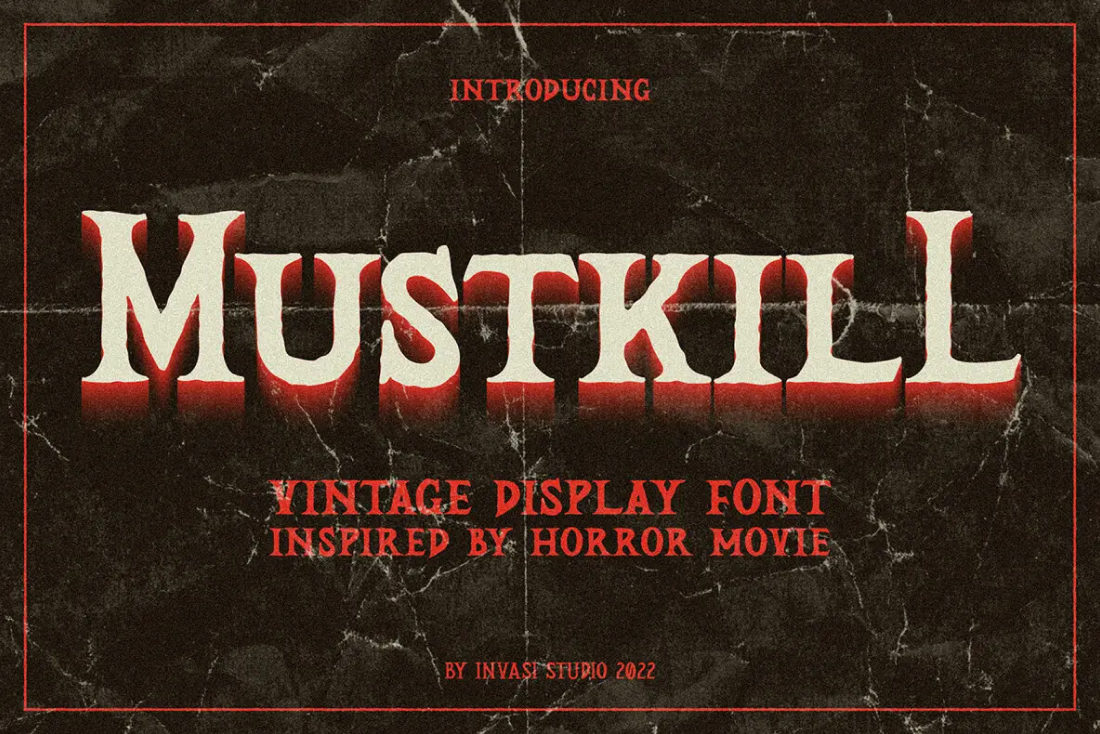
Manic
Manic is truly a messy handwriting font. It's scribbly, it's scratchy and above all, it's unique.
It has a massive amount of glyphs and ligatures (650+) and each alternate's characters can be mixed and matched to create that extra messy look. Manic looks like real handwriting, like it was scrawled onto paper with a lead pencil.
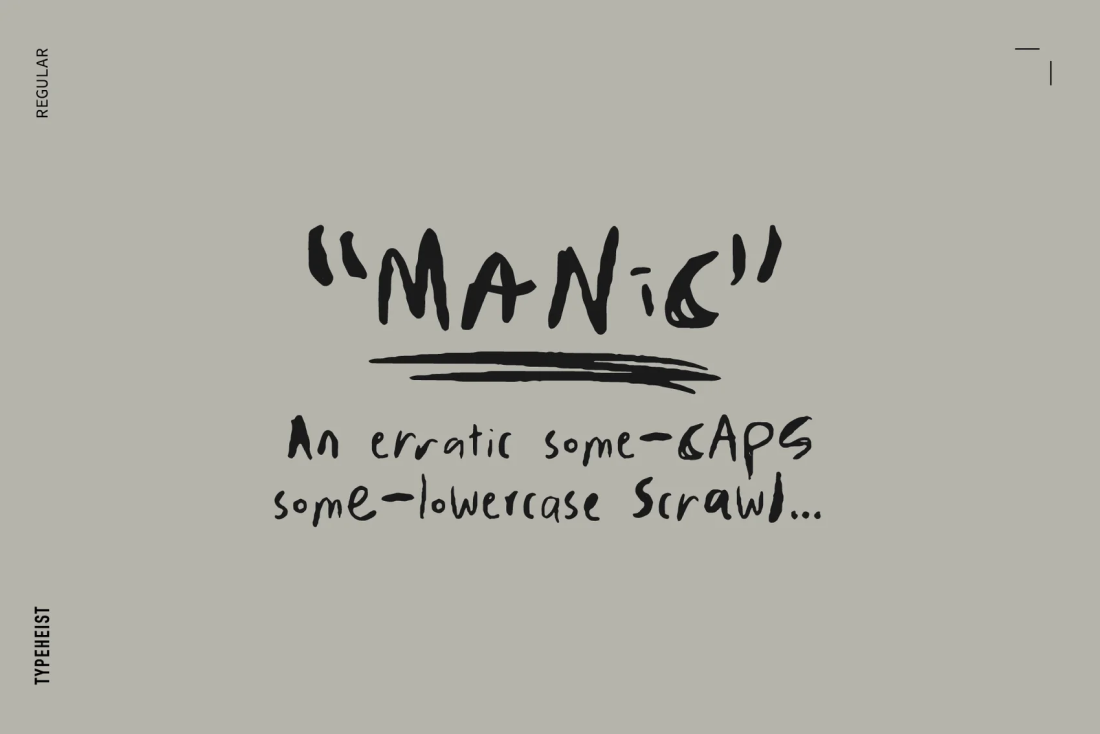
Spooky Society
Just in time for your halloweeny projects.
Say hello to Spooky Society! A ghoulish, and fun all caps Bitmap SVG font with built-in speckly texture. A Regular Solid version of the font is also included.
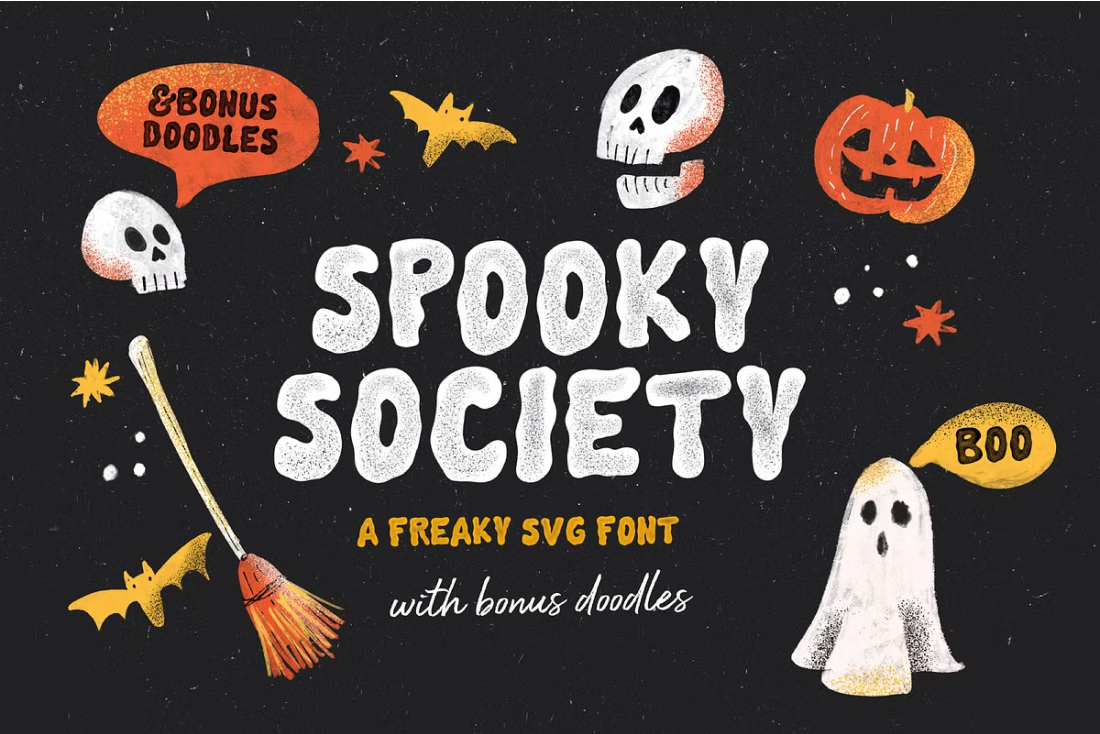
Fright Hours
Fright Hours is a great font for use in poster or movie designs that have horror and freaky vibes! With multiple languages supported, this could be your next Halloween event's sign off.
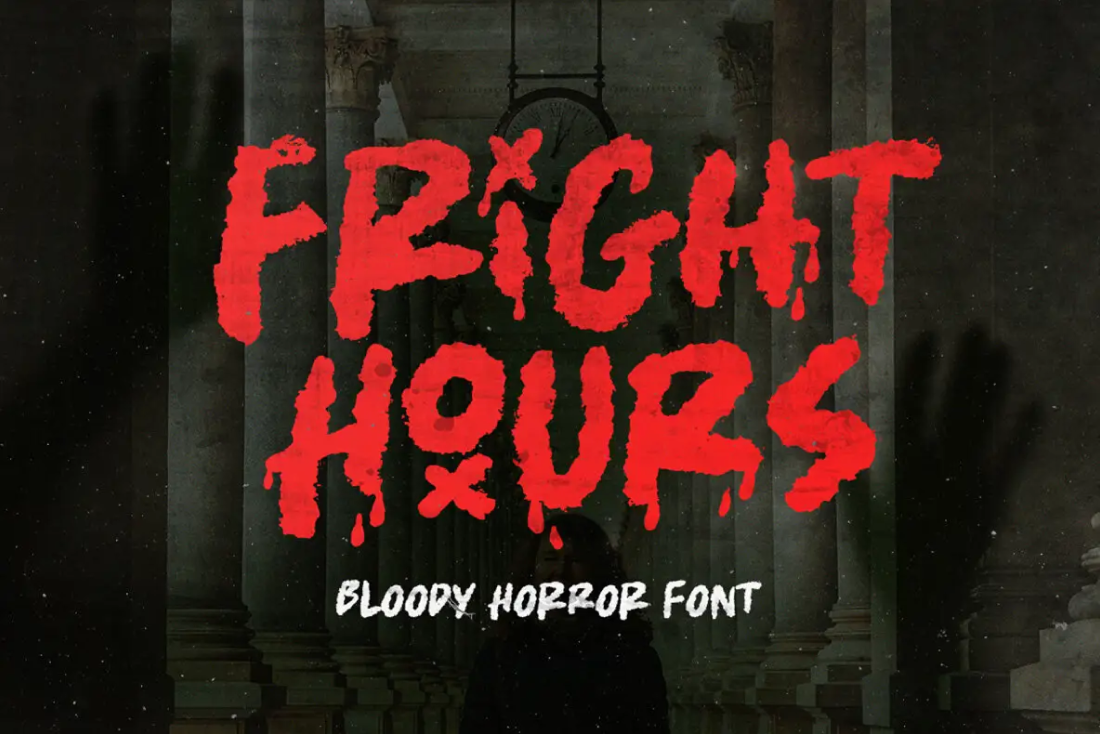
Sticky
It’s a little messy, a little weird and a lot of fun. Perfect for projects that call for a friendly and slightly unusual touch.
Sticky is an unusual but approachable font with a playful edge. Designed to look like genuine handwriting, it’s packed with glyphs, ligatures and alternates to give your text natural flow and plenty of variation. Every letter feels a little different, adding a sense of personality and authenticity.
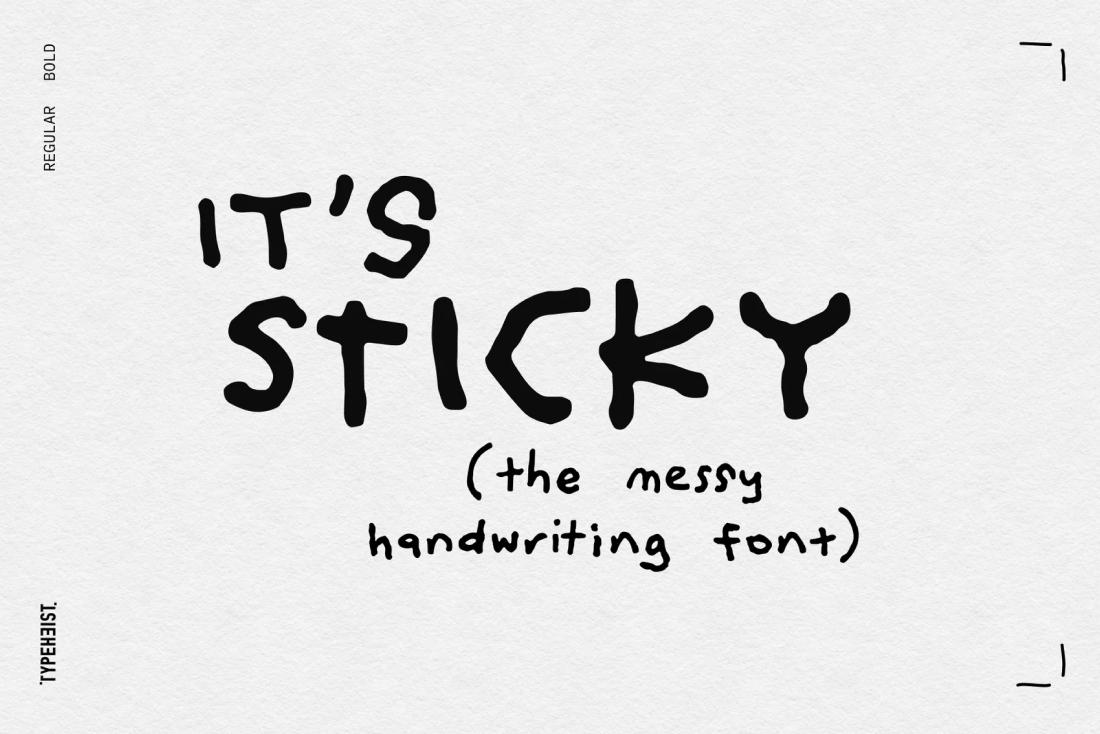
Zombik
The Zombik Typeface: An Unconventional Charm
The Zombik typeface exhibits a distinctive style that blends playfulness with a hint of nostalgia. Carefully crafted for those who seek an intriguing yet approachable aesthetic, this typeface stands out with its quirky design elements.
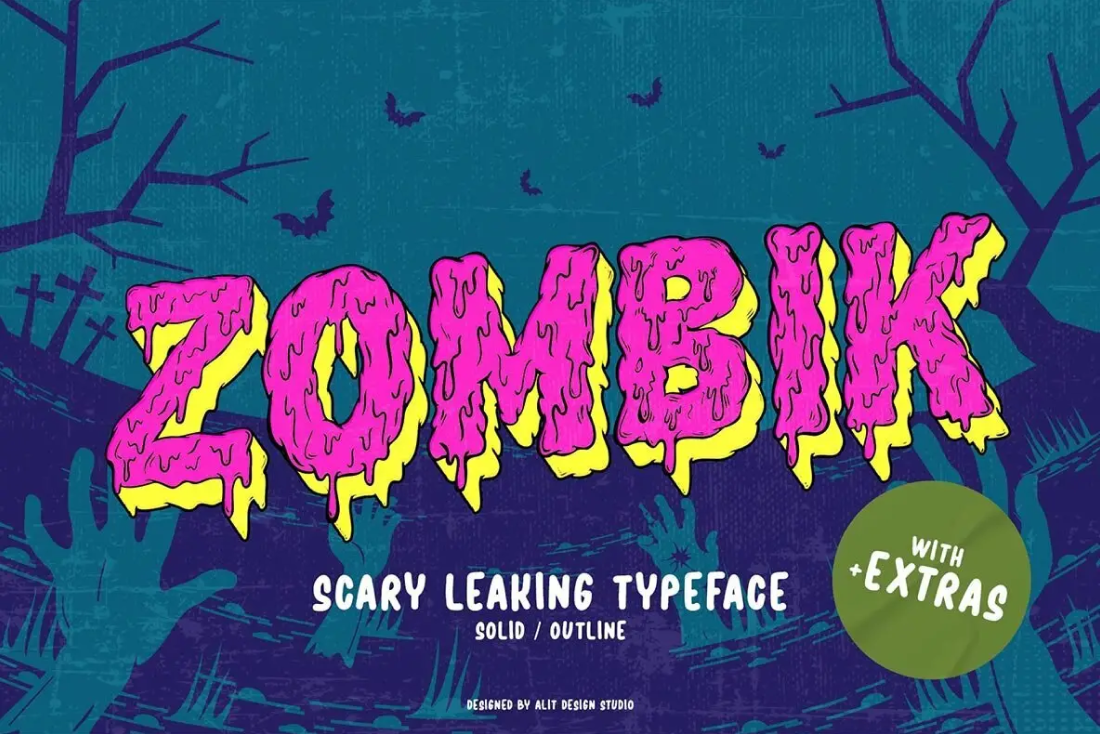
Hello October
HELLO OCTOBER – A Spooky Font Get ready to add some spooky charm to your designs with Hello Halloween, a fun and imperfect handwritten font made especially for the Halloween season! 🎃👻
This unique typeface is filled with handmade, messy strokes that give it a playful “spooky but cute” vibe. Perfect for posters, titles, party invitations, stickers, quotes, labels, and any project that needs a Halloween touch.
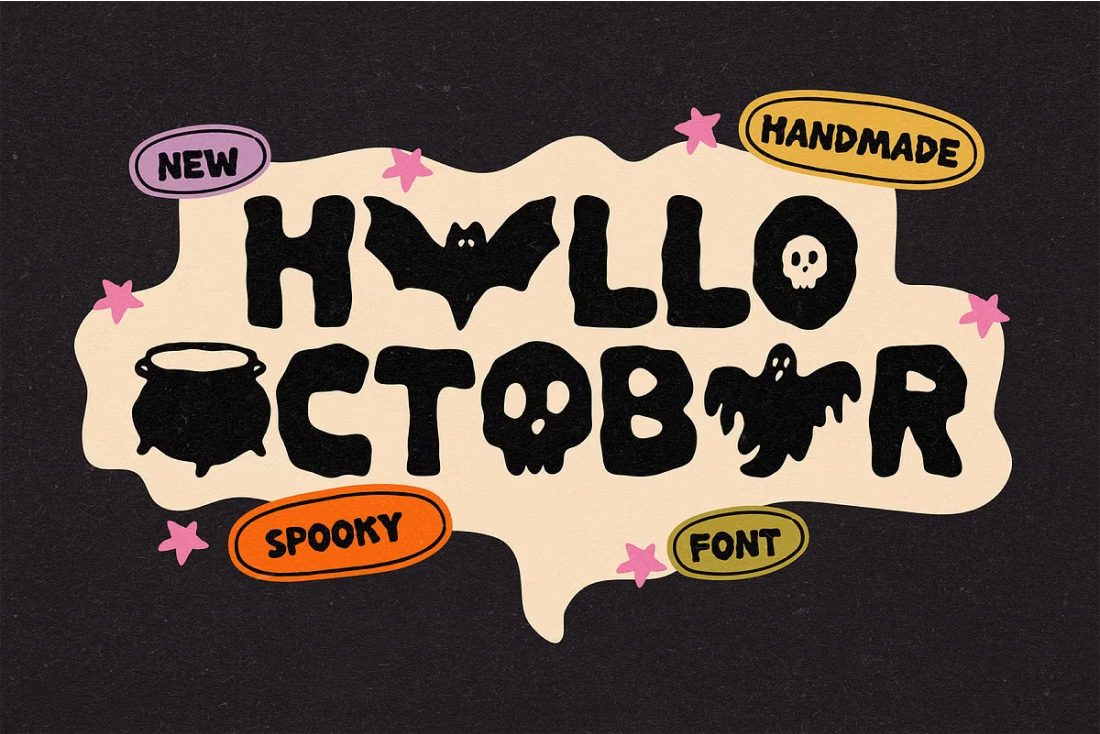
Wasted Year
Wasted Year is a wonderfully wild messy handwriting font. What makes this font special is the erratic switch between uppercase and lowercase letters.
Wasted Year has no set uppercase or lowercase; it changes based on the letter combinations you enter so you never quite know what you're going to get 😎 Try it out yourself.
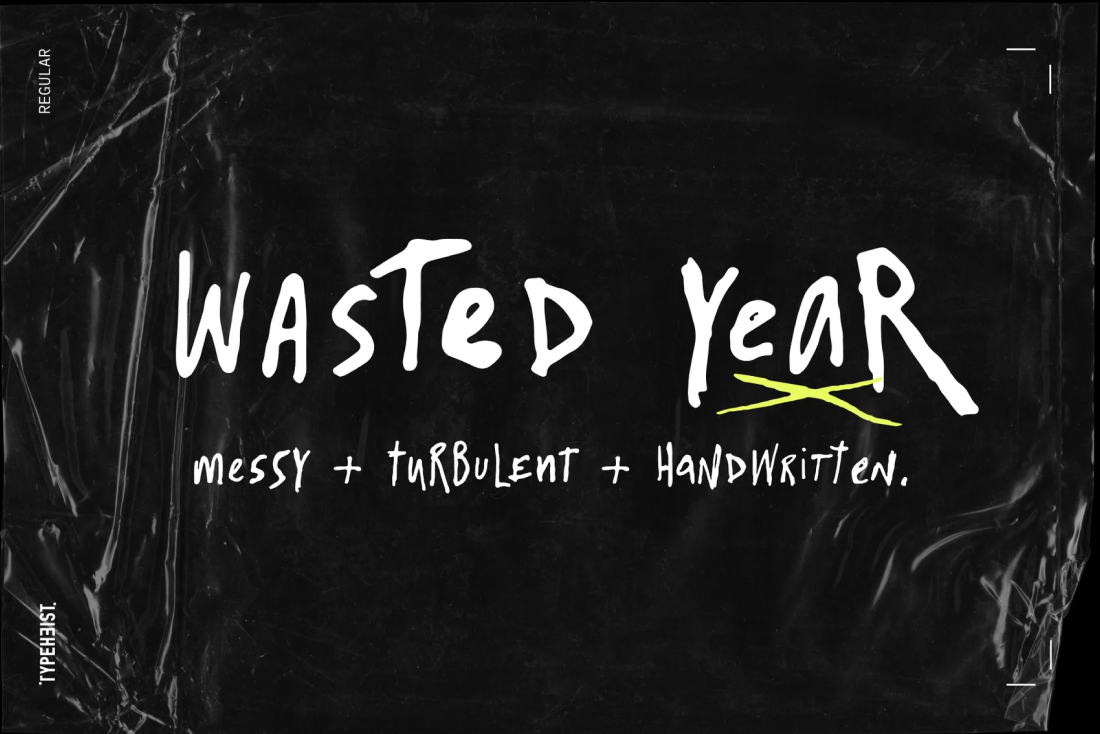
Vampliers
Vampliers is a handmade horror font, inspired by the lettering of classic sci-fi and horror film posters. It’s perfect for Halloween party invites, posters, packaging design… Any project you want to give that “vintage spooky” feel, Vampliers will protect your neck.
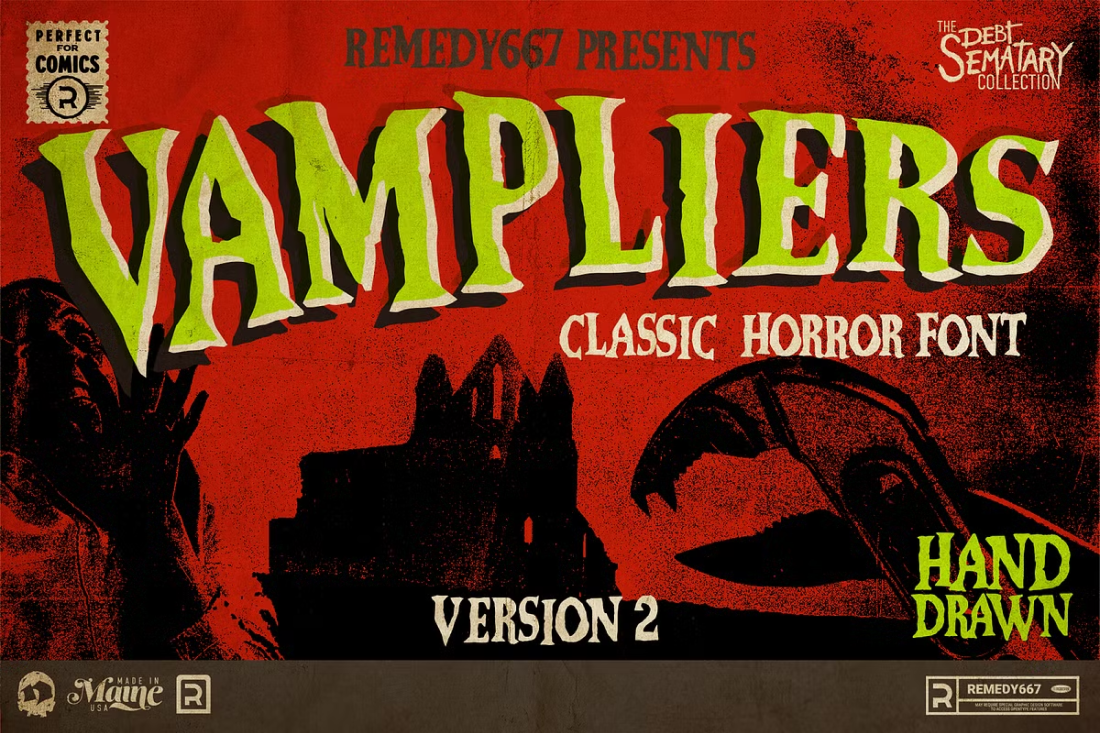
Infamous
Infamous is a slightly italicised messy handwriting font. It's rough, scratchy and has a unique textured edge.
Perfect for adding a grunge or distressed handwritten look to posters, branding, packaging, or digital designs, Infamous captures the authenticity of real ink on paper.
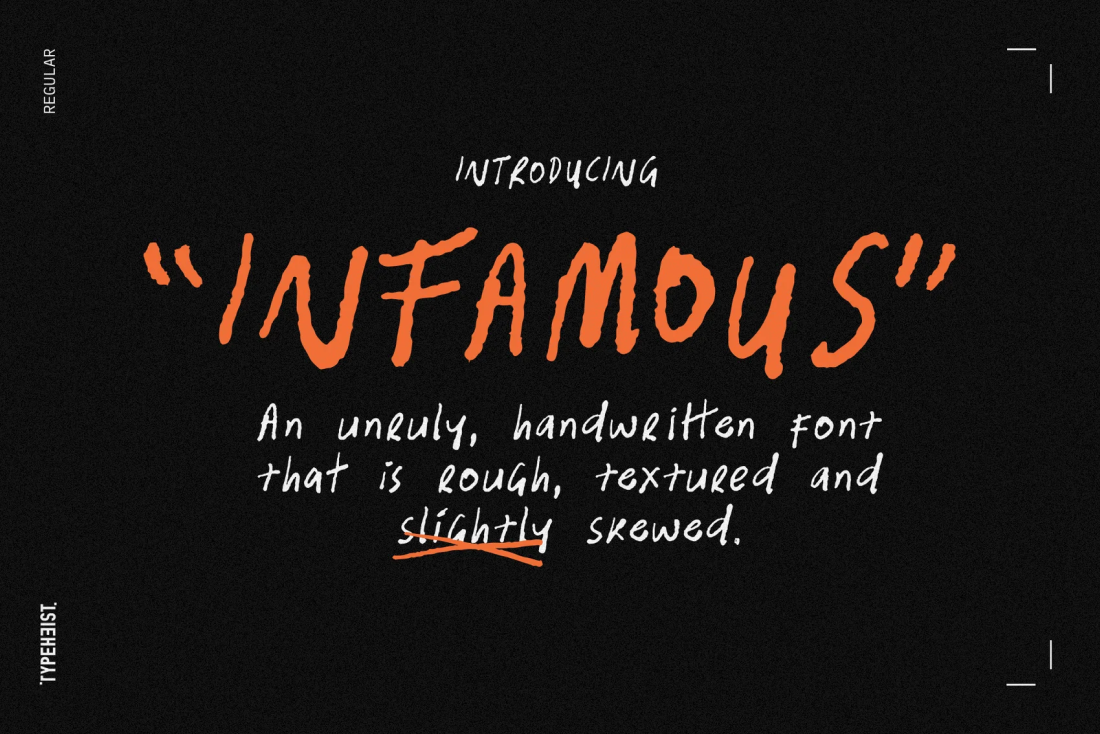
Voodoo
Voodoo is a scratchy, scribbled and all caps Halloween font.
This spooky handwriting font has regular and bold font weights and includes 40+ matching scribble illustrations (voodoo dolls spiders, ghosts, skulls and more).
Scratch
SCRATCH is an edgy, spooky, awesome handmade font with every letter, number, and punctuation, and glyph you can imagine! Includes multi-language characters!
Prickly Pear
A messy handwritten font with a unique backstory.
Prickly Pear was created on a roadtrip to the Simpson Desert, scribbled in a moving car somewhere in the middle of Australia. The result? A rugged, offbeat typeface that mimics the wild terrain it was created on.
Pandemonium
"Wild uproar, unrestrained disorder; tumult or chaos". True to its name, Pandemonium font is exactly that: wild, chaotic and super erratic.
This messy handwriting font doesn't follow any rules. It's skinny, it's wide, it's bold, it's scratchy, it's jagged and unpredictable. And yet somehow, amongst it's disorder, each letter harmonises with the next one.